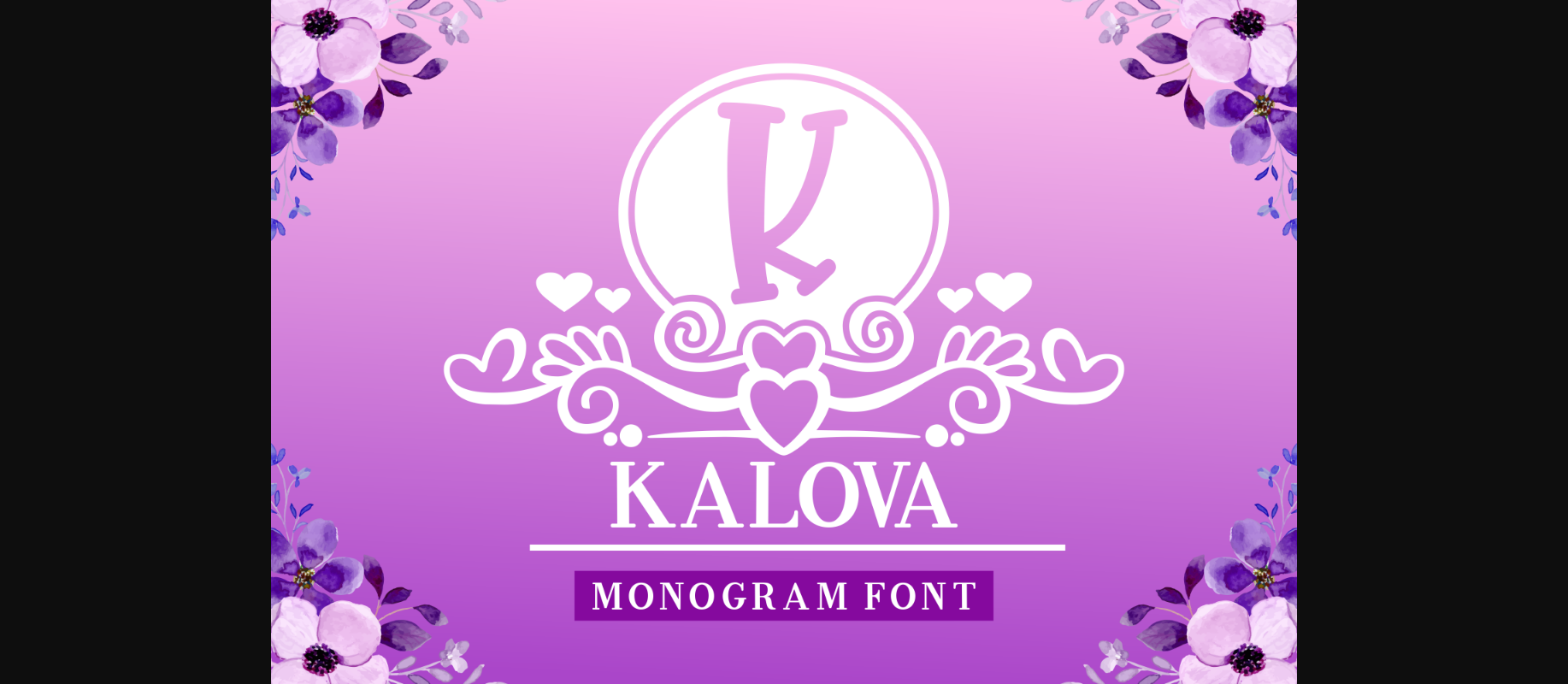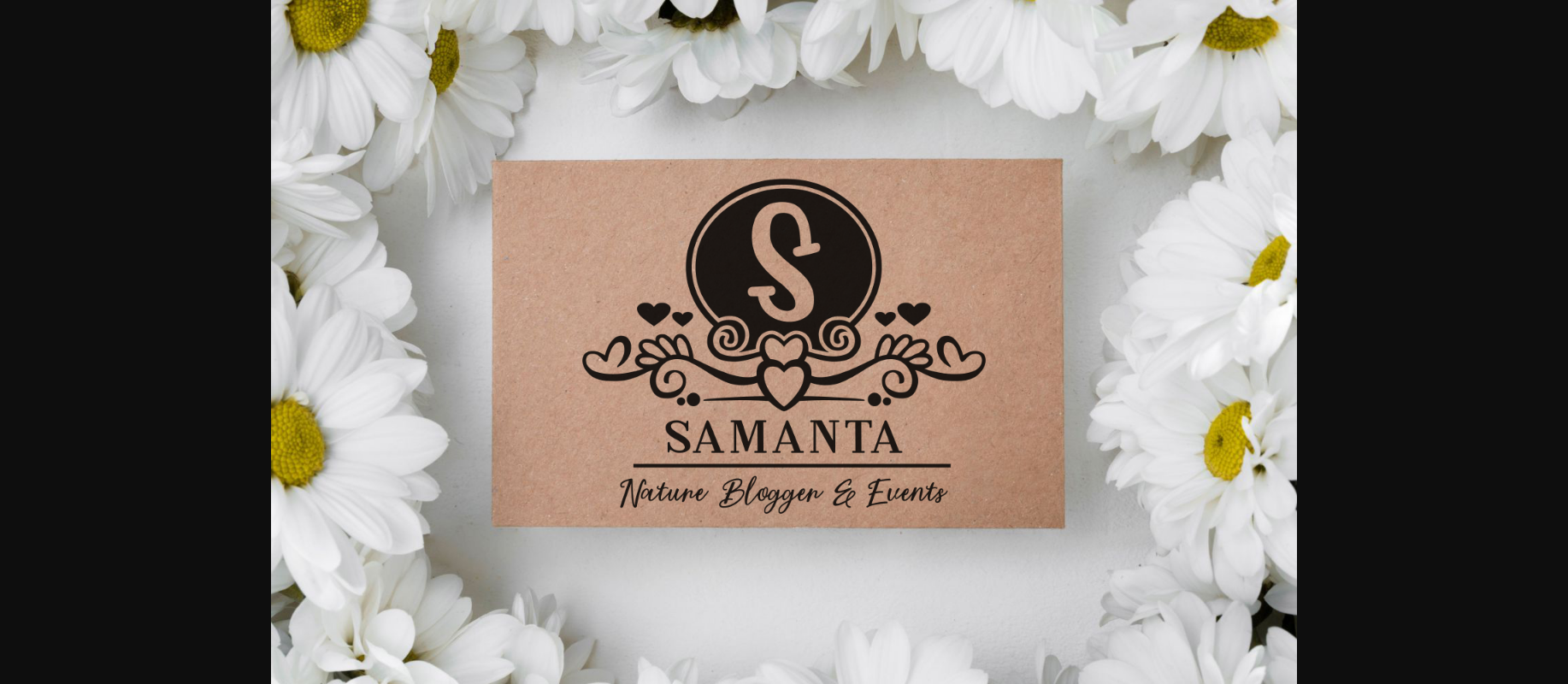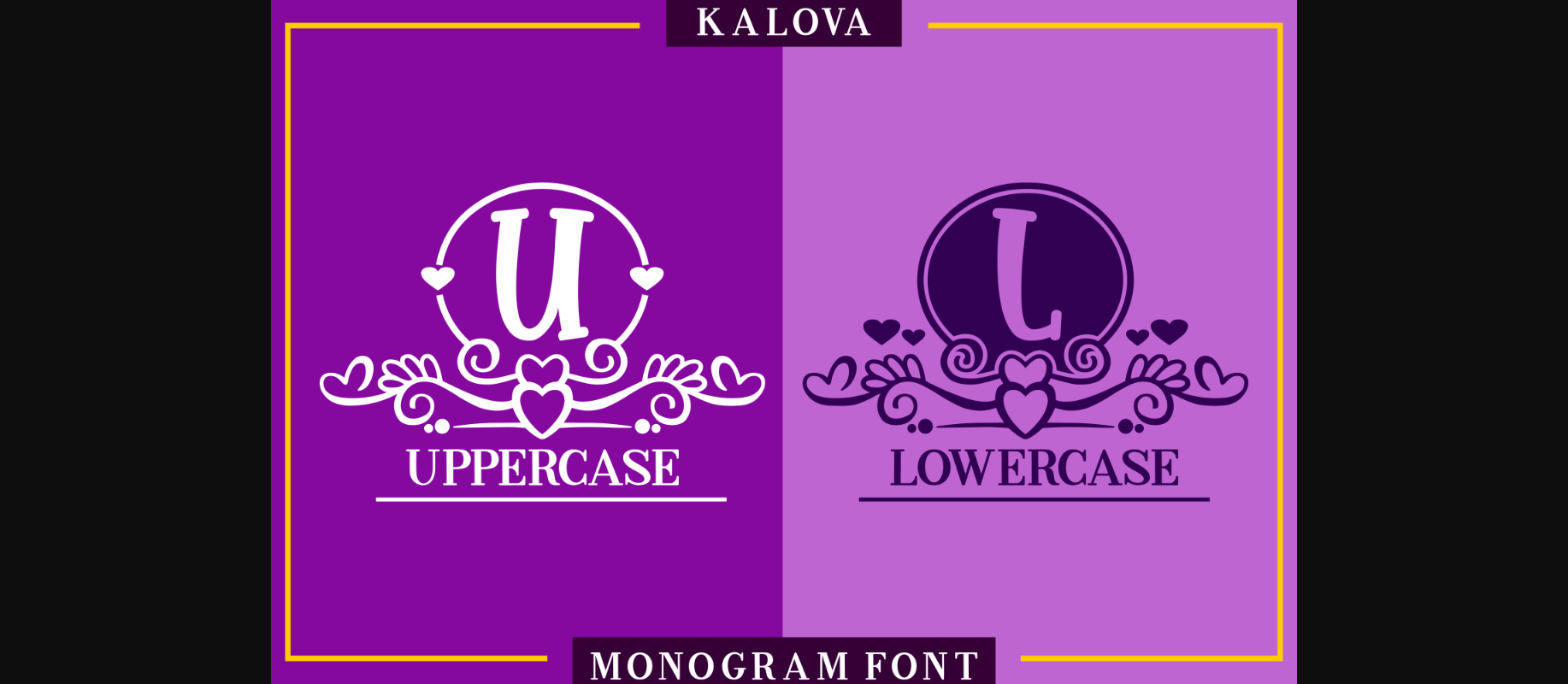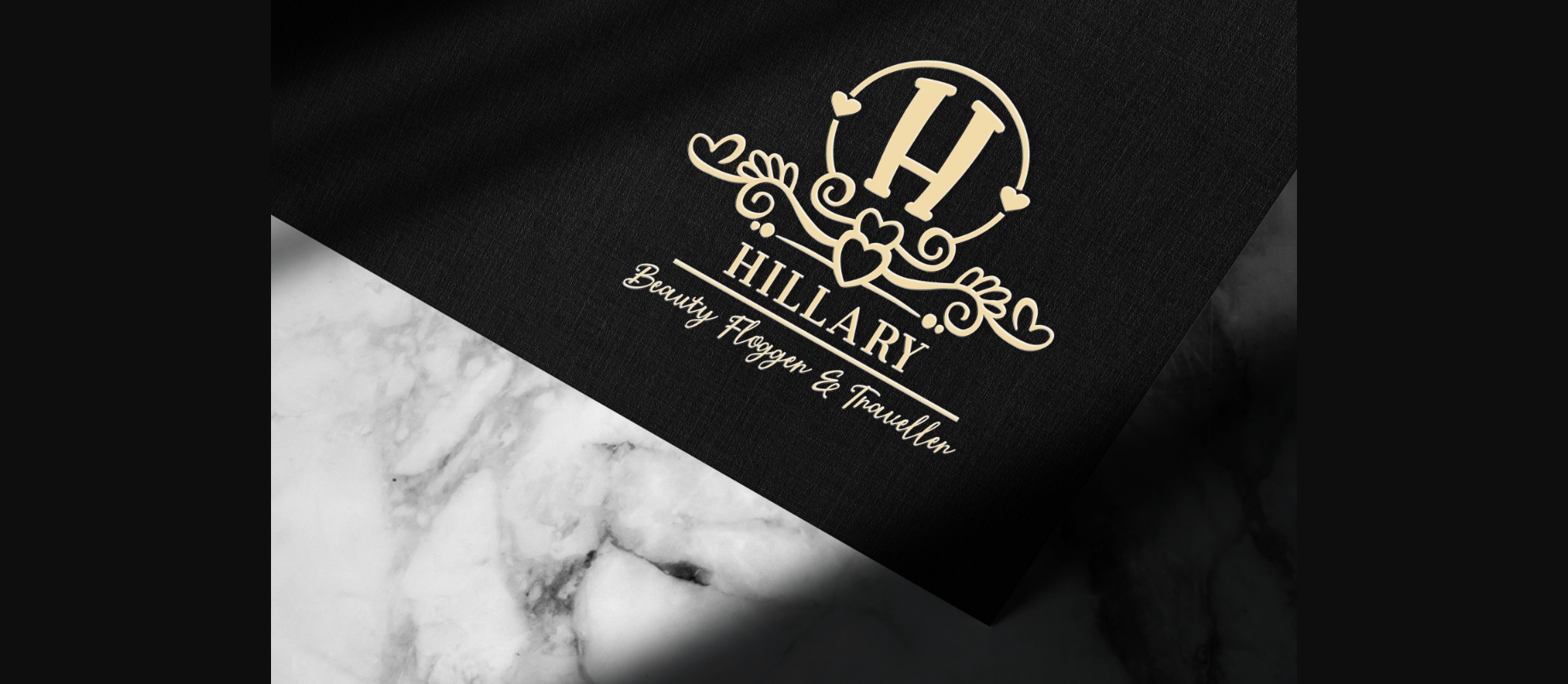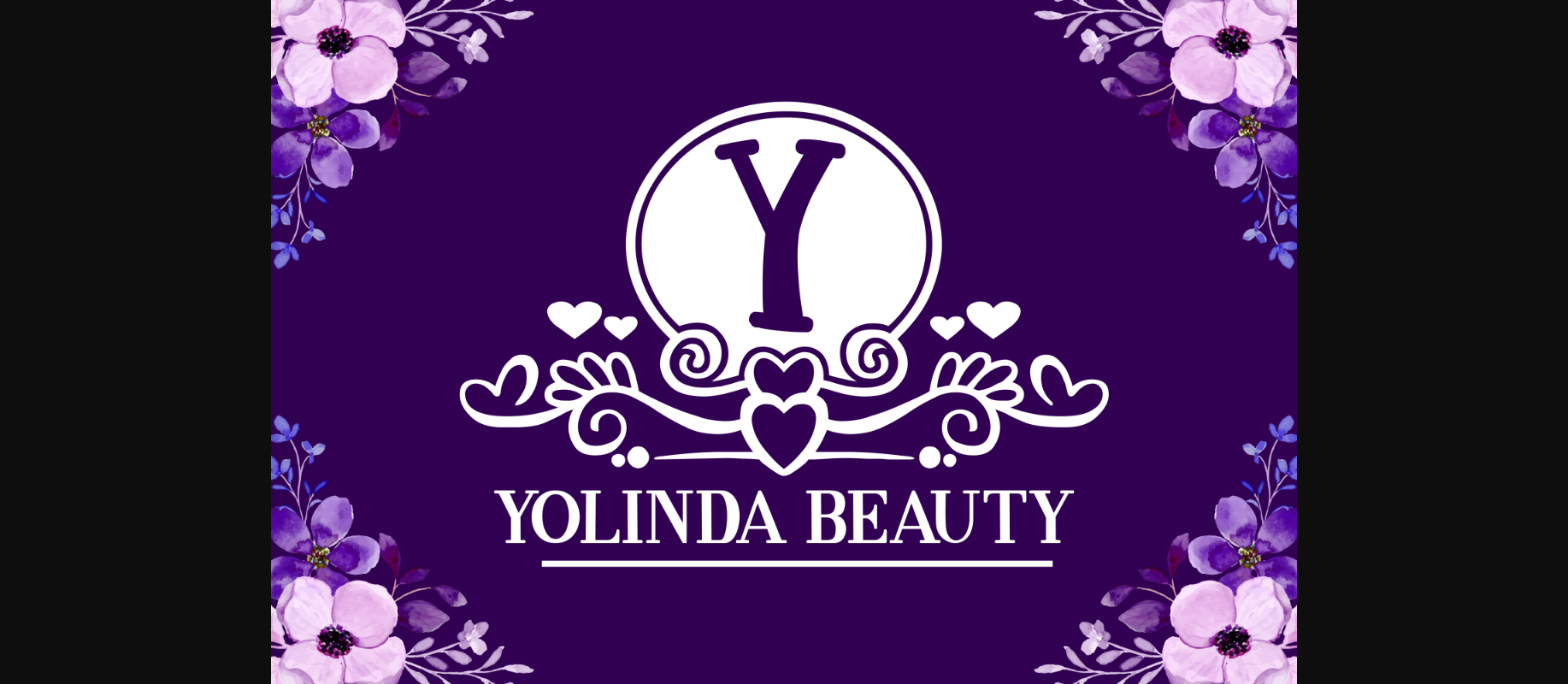
About Kalova Font
Kalova is a romantic and sweet decorative font. Fall for its ravishing style and use it to create gorgeous wedding invitations, beautiful stationary art, eye-catching social media posts, and much more!